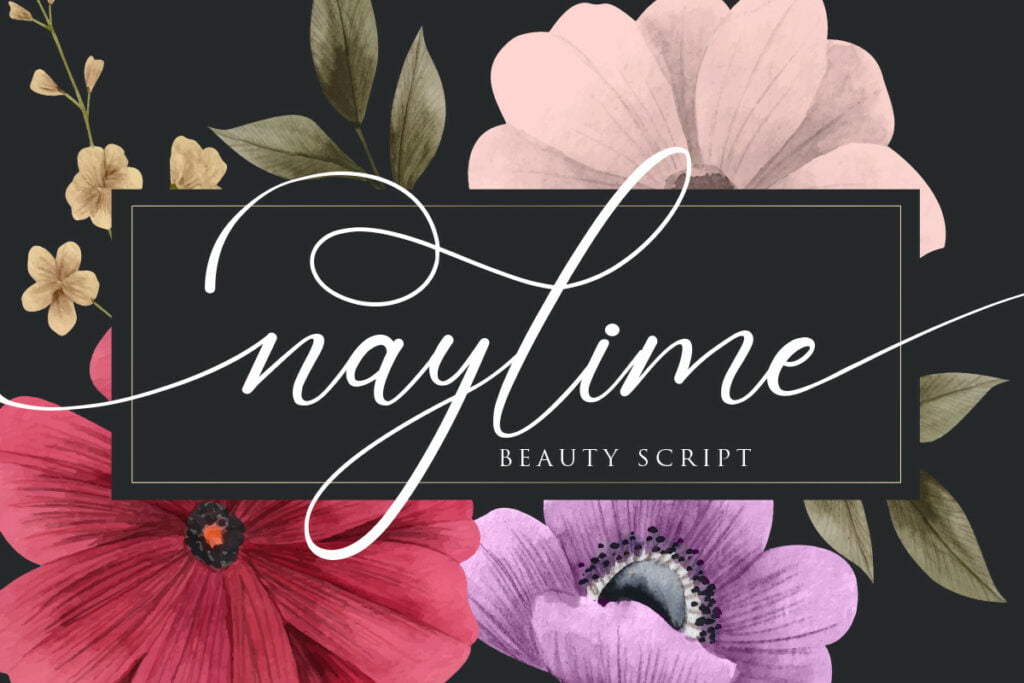
Naylime Font
Naylime is a beautiful light calligraphy font with a unique feel and a stunning impact. It will add a luxury spark to any design project that you wish to create!
Naylime Beauty Script Font